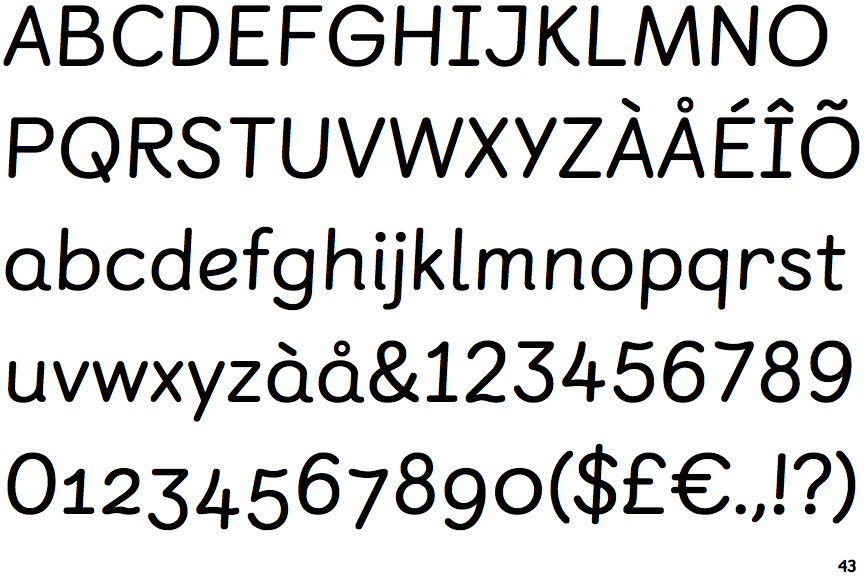
Castledown Fun
Developed in conjunction with Castledown Primary School, Hastings, UK, for use in primary education.
Designers: Anthony Sheret and Edd Harrington Year: 2014-2020 Publisher: Colophon Ideal for children's books, school use, and language teaching. An OpenType font that includes both lining and oldstyle figures. |